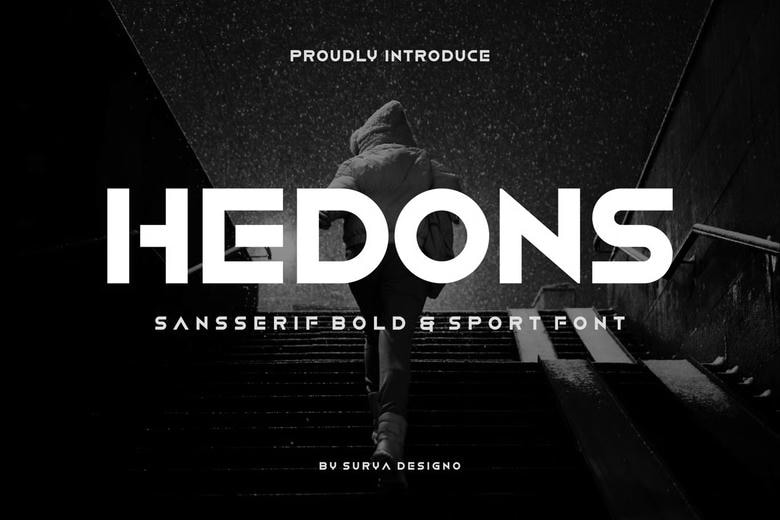
Hedons Font
Hedons Font – Modern Font is a bold and authentic display font. The font is suitable for any branding project like logo, t-shirt printing, esport, and many more. outstanding in a wide range of contexts.
Hedons Sans Serif Font